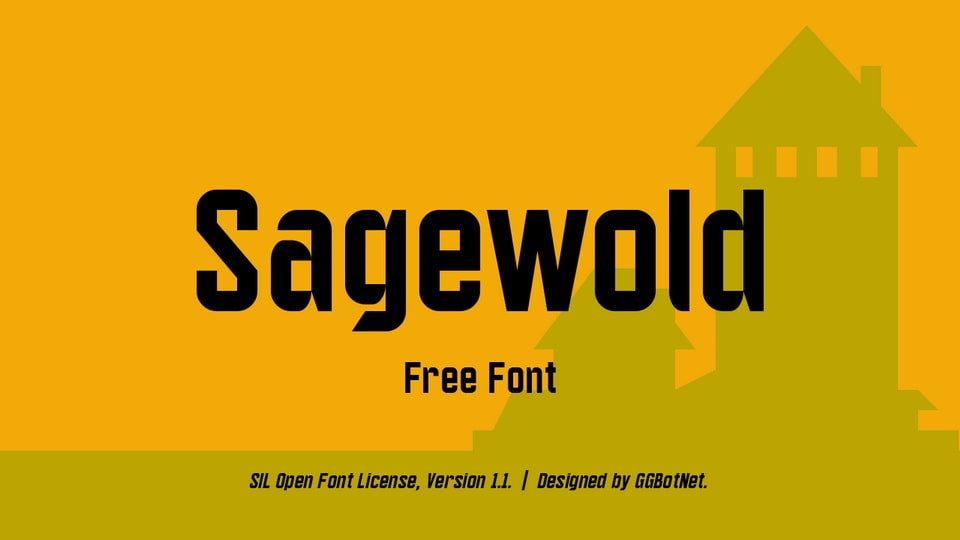
Download Sagewold font, a modern geometric sans-serif typeface that combines bold blocky shapes with sharp angles to create an industrial, robust aesthetic.